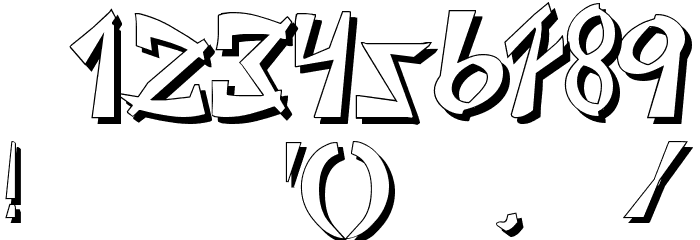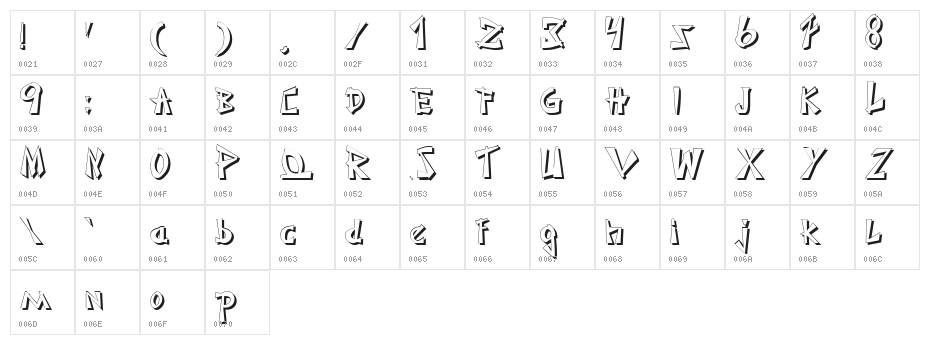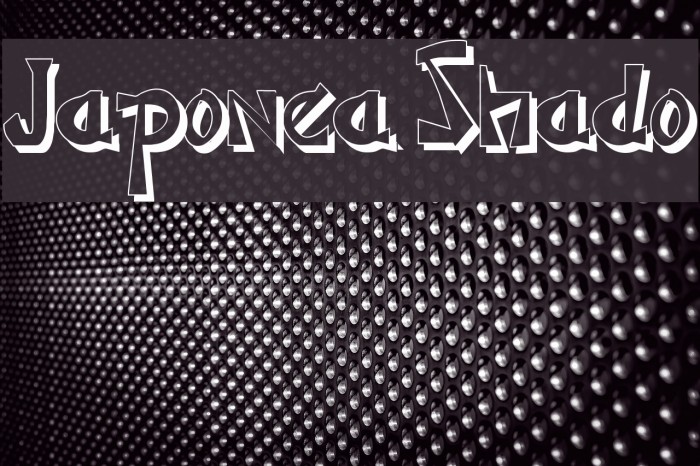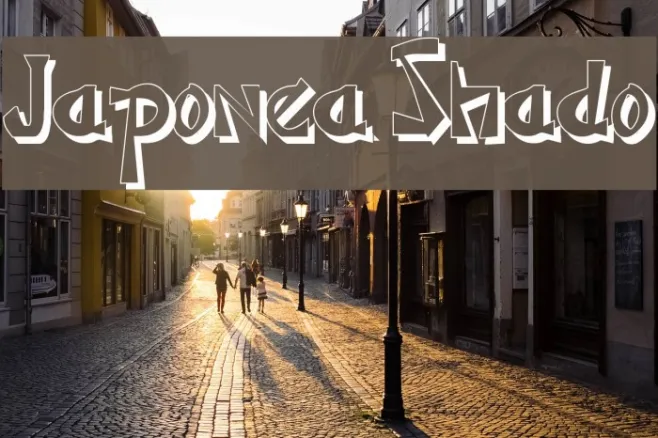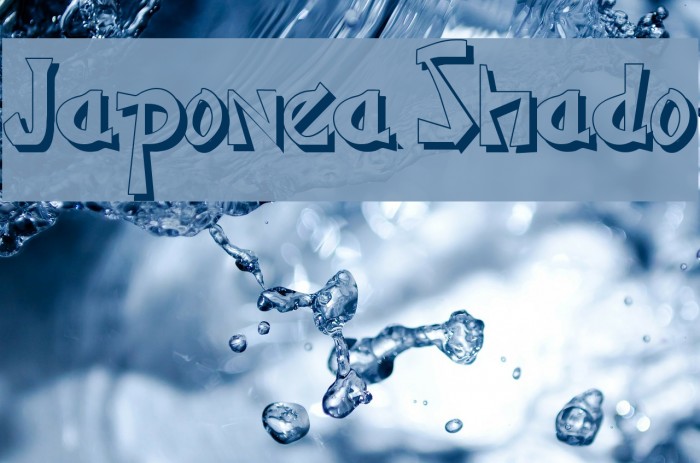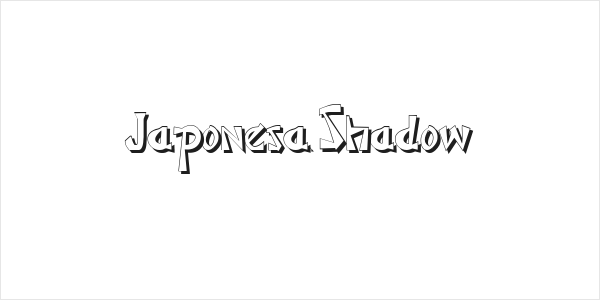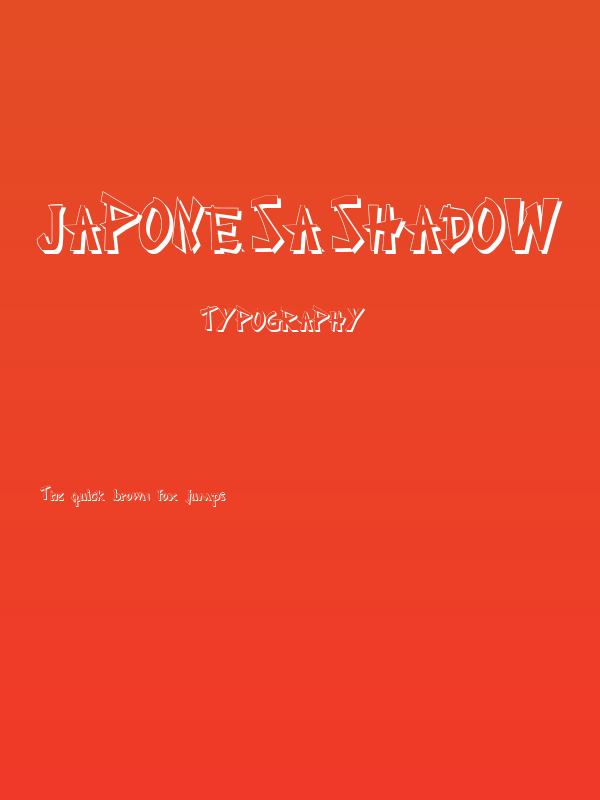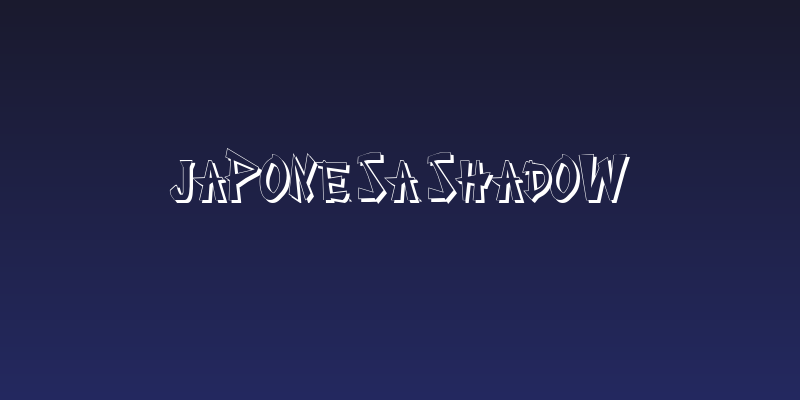
JaponesaShadow Font
JaponesaShadow Description
This font features a bold, dynamic style with a strong shadow effect that gives each character a three-dimensional appearance. The letters are angular and sharp, with a graffiti-like aesthetic that suggests movement and energy. The uppercase and lowercase letters maintain a consistent style, with exaggerated serifs and unique geometric shapes. Numbers and special characters follow the same design principles, ensuring a cohesive look across all glyphs. The font's playful yet edgy design makes it stand out, suitable for projects that require a bold statement.
| Overall Style | Modern, Urban |
| Proposed Projects | Ideal for street art designs, urban-themed posters, music album covers, and edgy branding projects. |